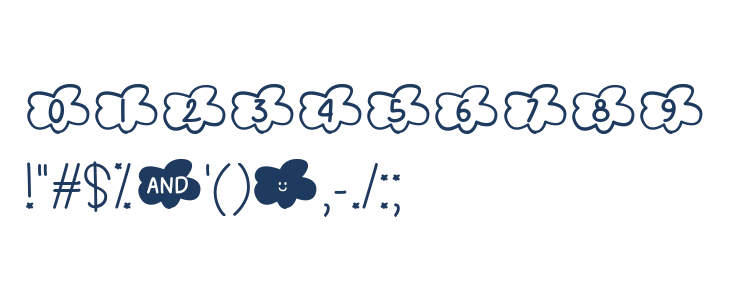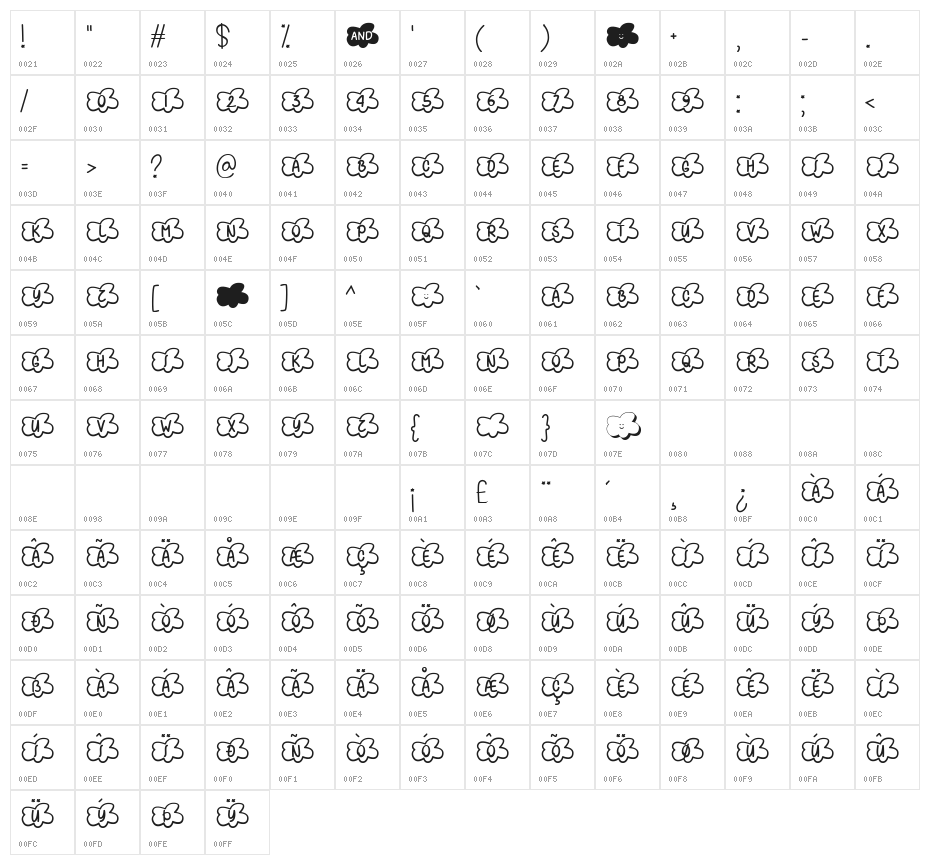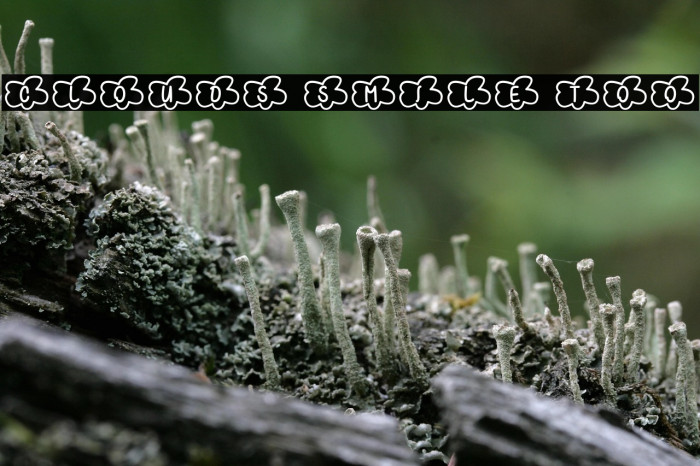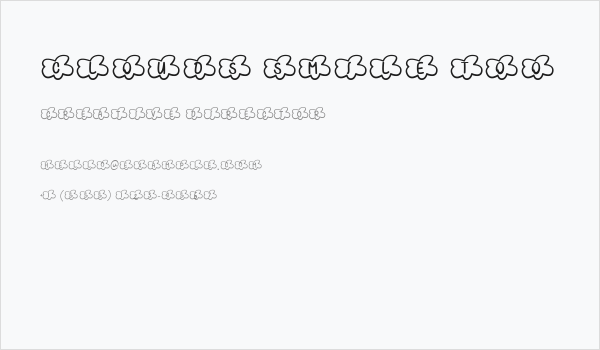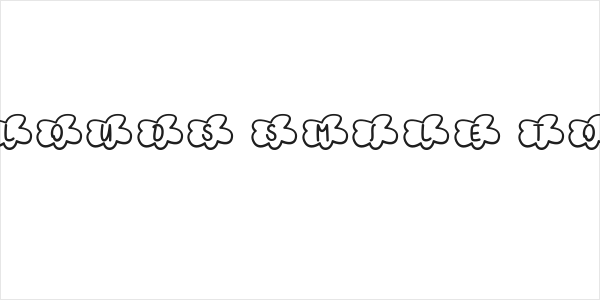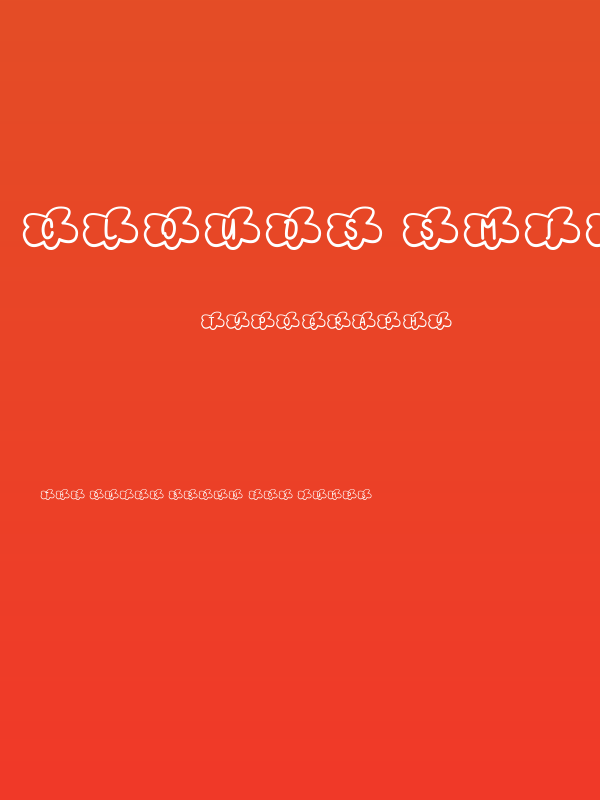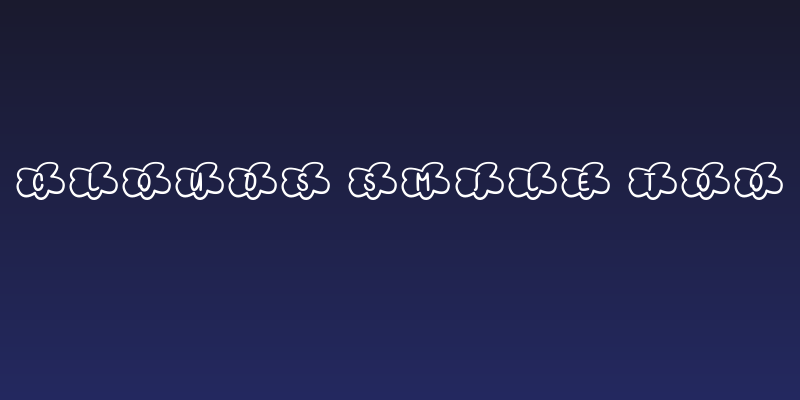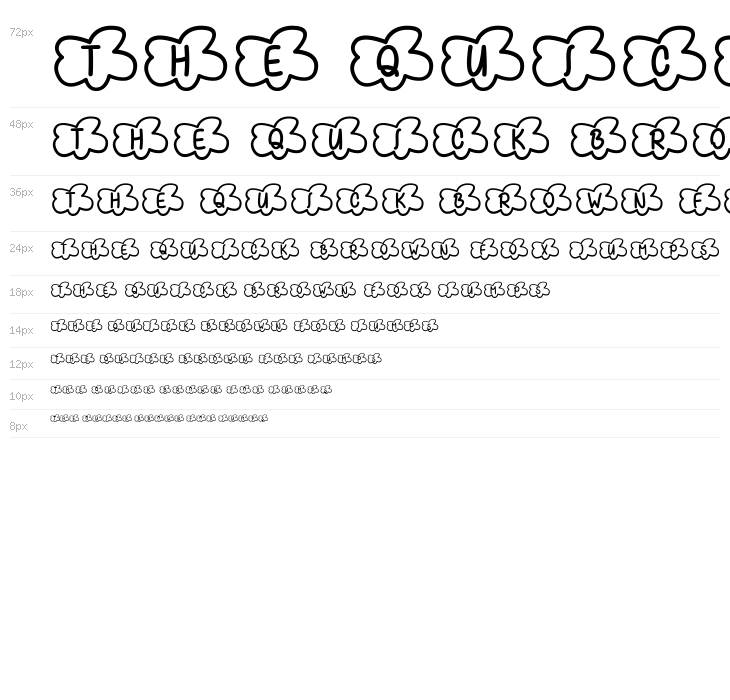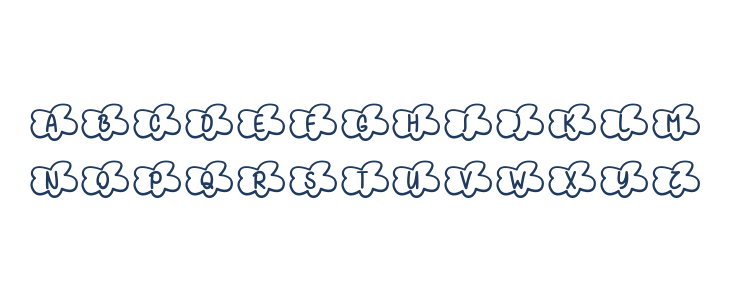
Clouds Smile Too Font
Clouds Smile Too Description
This playful and whimsical font features characters enclosed within cloud-like shapes, giving it a unique and cheerful appearance. The letters and numbers are bold and rounded, with a consistent outline that enhances their visibility. The special characters are creatively integrated into the cloud theme, adding a touch of fun and creativity. This font is perfect for projects that aim to convey a sense of joy and lightheartedness, making it ideal for children's materials, playful branding, or any design that requires a touch of whimsy.